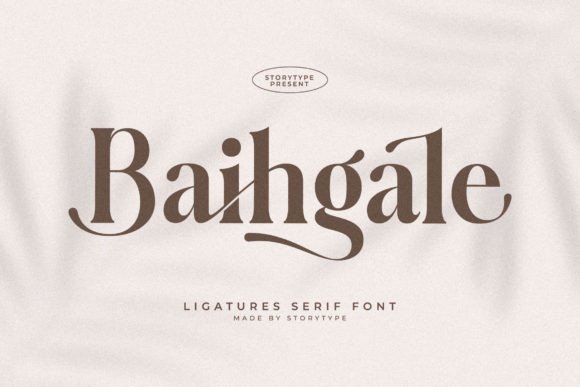
Indulge in the enchanting allure of Baihgale, a serif font that weaves a tapestry of charm and sophistication. Its graceful curves and delicate flourishes evoke a sense of timeless romance, making it the perfect choice for crafting written masterpieces that ignite the heart and captivate the imagination.
Step into a realm where your words take on a life of their own, adorned with the elegance of Baihgale. From heartfelt love letters to captivating novellas, this font transforms your writing into a symphony of emotion. Its versatile nature lends itself effortlessly to a myriad of creations, from alluring logos that command attention to fashion-forward designs that exude chic and allure.
Baihgale is more than just a font; it's a gateway to a world of endless possibilities. Its PUA encoding empowers you to unleash your creativity, accessing a treasure trove of swashes and glyphs that add a touch of whimsy and flair to your designs. Let Baihgale be your muse, guiding you to craft visual masterpieces that leave an indelible imprint on the hearts of your readers.